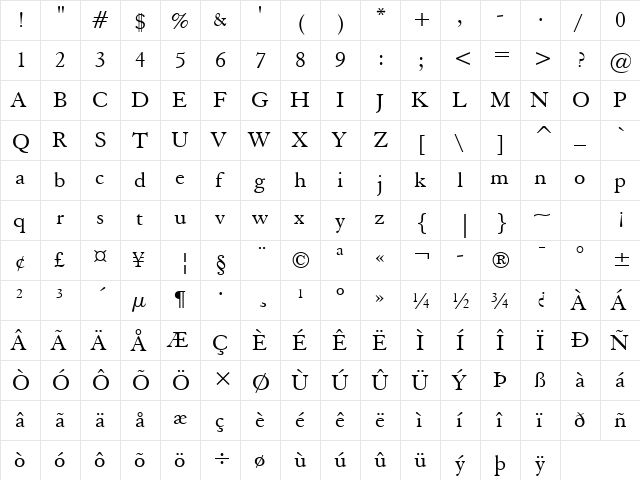
ElegaGarmnd BT Roman
Design Context for ElegaGarmnd BT Typeface
ElegaGarmnd BT takes a measured approach to typography — its balanced proportions and neutral character make it a reliable workhorse for both digital and print work.
Pro Tip: Use ElegaGarmnd BT in both headline and body roles to test its range before committing to a single application.